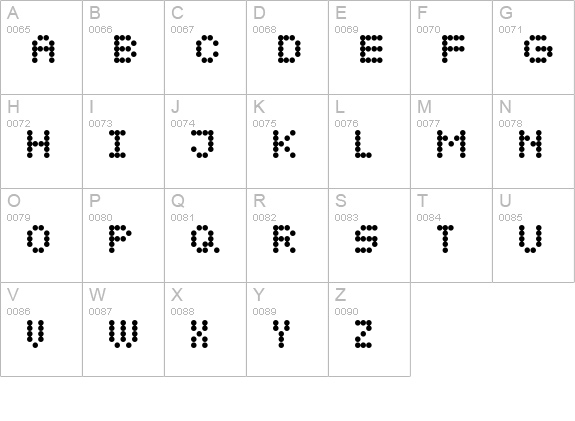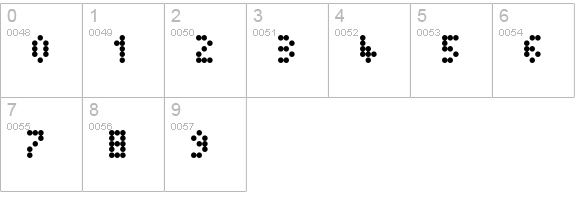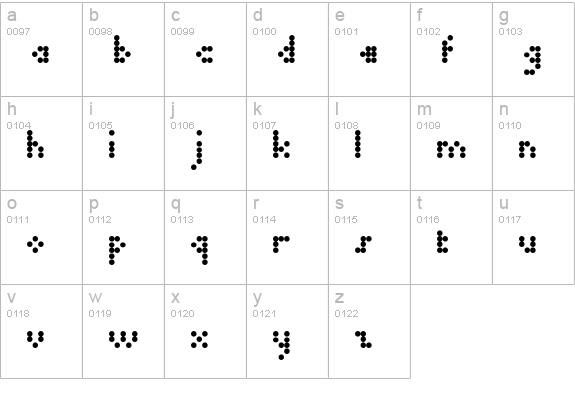
Introducing Seven Points font, a versatile and contemporary typeface designed for all your creative needs. With its sleek and clean lines, Seven Points font exudes elegance and sophistication, making it the perfect choice for a wide range of projects, from branding and packaging to advertising and web design. This font offers an extensive character set, including uppercase and lowercase letters, numerals, punctuation marks, and special symbols, ensuring that you have all the tools you need to bring your vision to life. Its well-balanced proportions and precise spacing create a harmonious and visually pleasing look, adding a touch of professionalism to any design. One of the most exciting features of Seven Points font is that it is available for free download at FontsMarket.com. This means that you can easily get your hands on this exceptional typeface without spending a dime. Whether you are a professional designer looking to expand your font library or a hobbyist seeking a high-quality font for personal projects, Seven Points font is the perfect choice for you. With its modern and minimalist aesthetic, Seven Points font is incredibly versatile, allowing you to use it in a variety of contexts. Its timeless design ensures that it will remain relevant and stylish for years to come, making it a valuable addition to any designer's toolkit. Don't miss the opportunity to enhance your creative projects with the elegance and sophistication of Seven Points font. Download it for free at FontsMarket.com and unlock a world of possibilities for your designs.